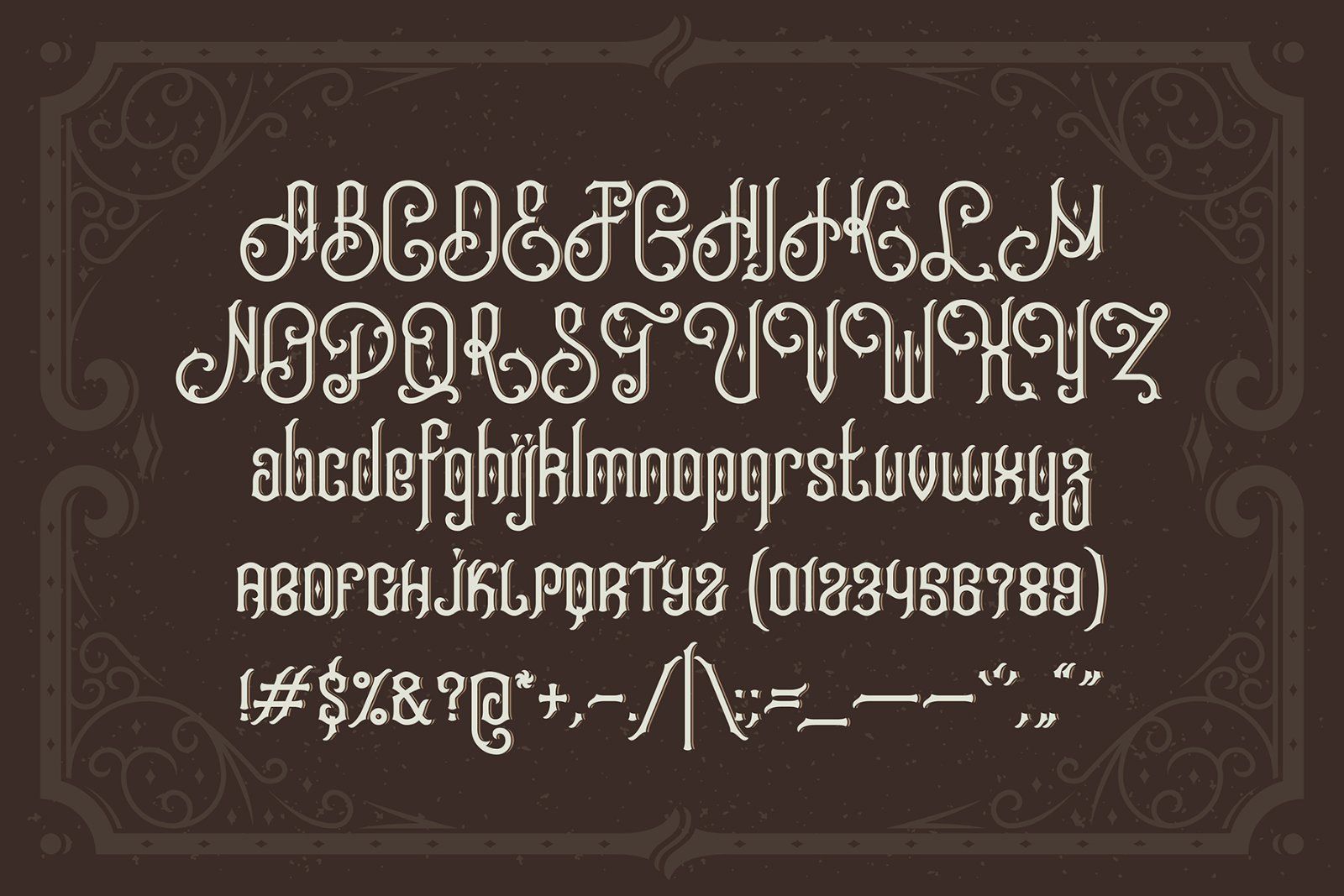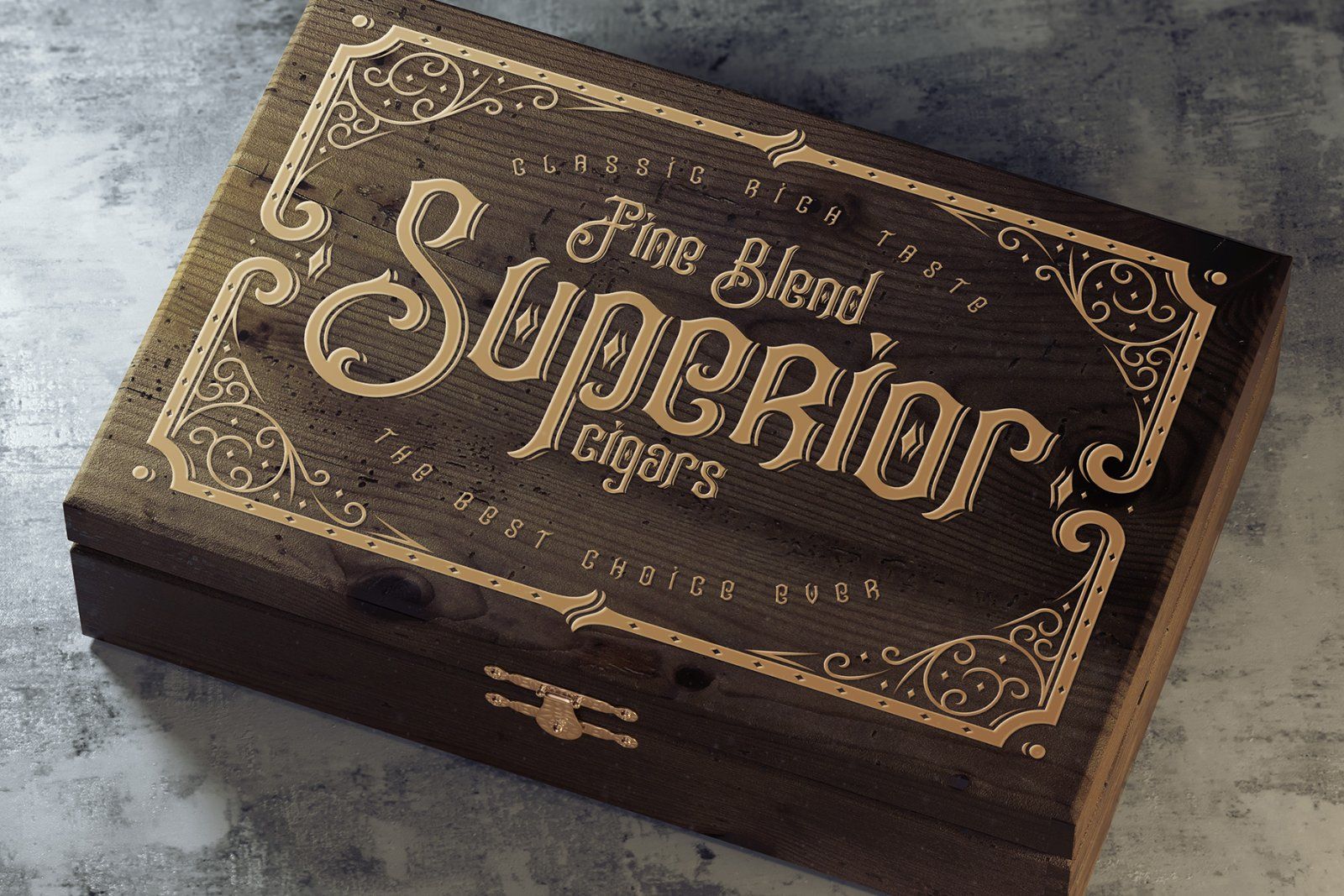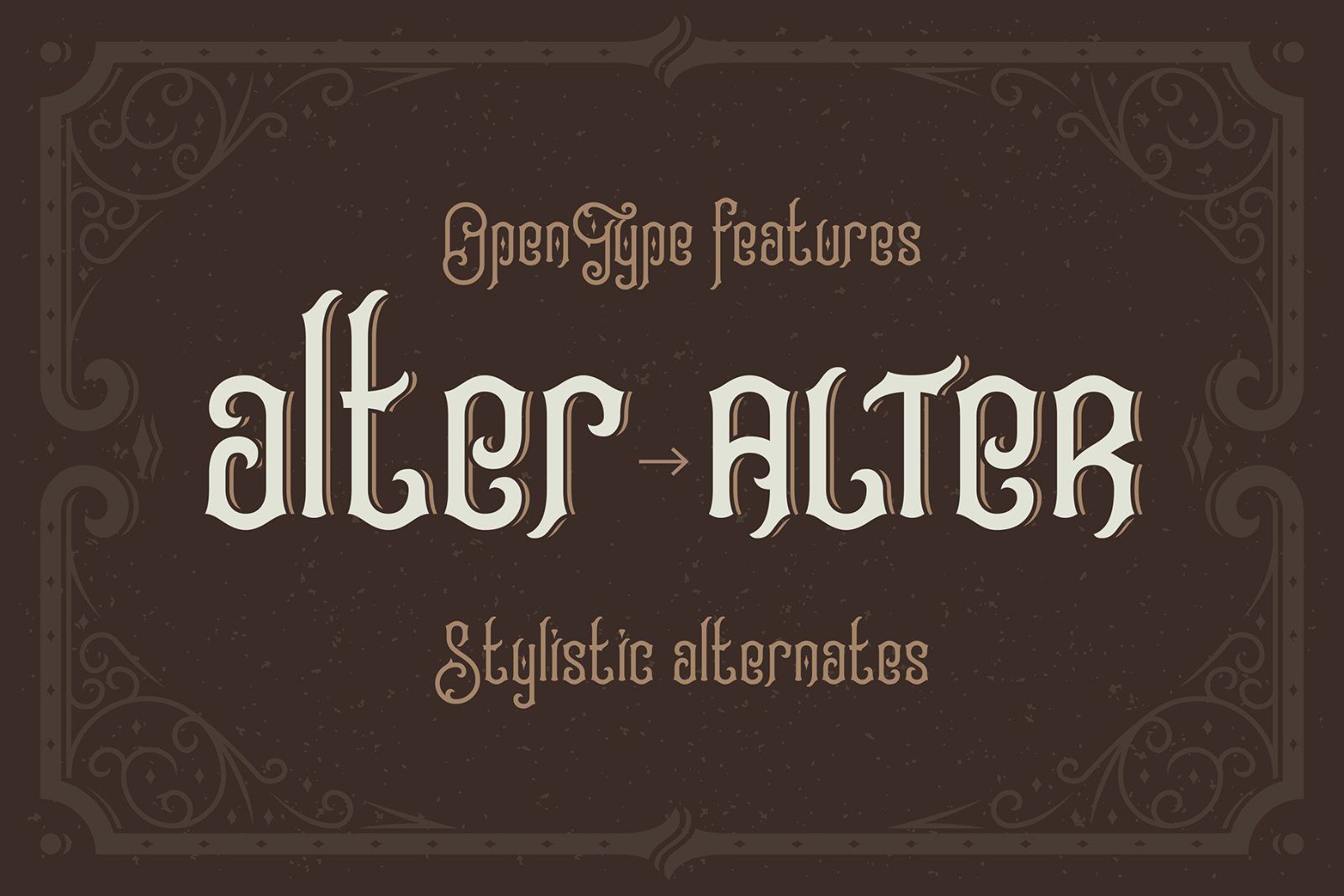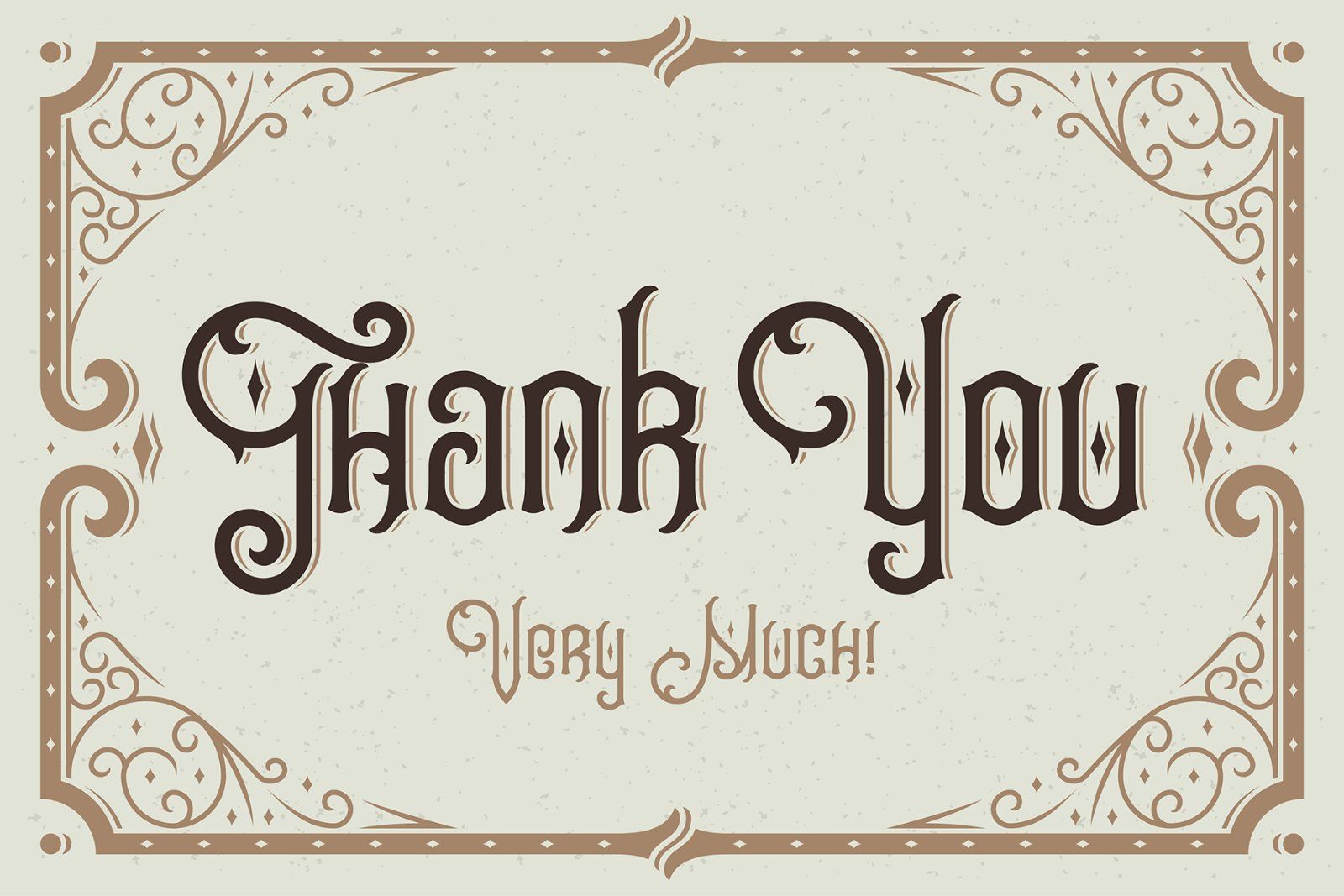
Hello! Introducing a vintage look font named "Tobacco Box". It also includes two high resolution 3d renders of box mockups. And a design template with a vector decorative frame and editable text blocks. The font has a useful OpenType feature - 15 stylistic alternates, that helps you to fit letters better in your lettering compositions.
Note: This font contains only Latin characters (all available characters you can see on the second screenshot)